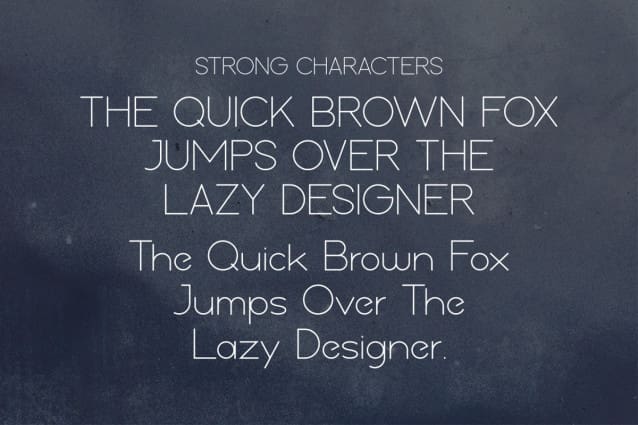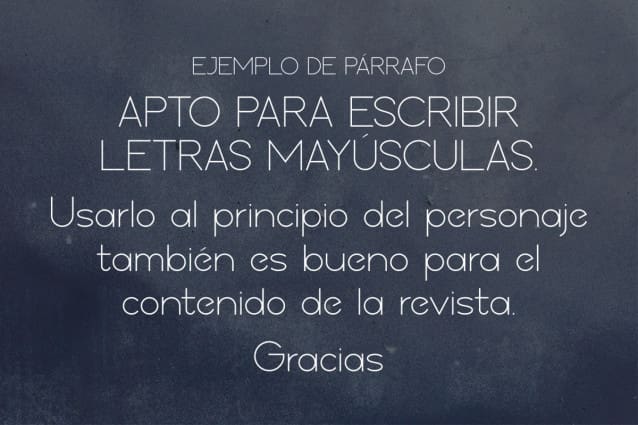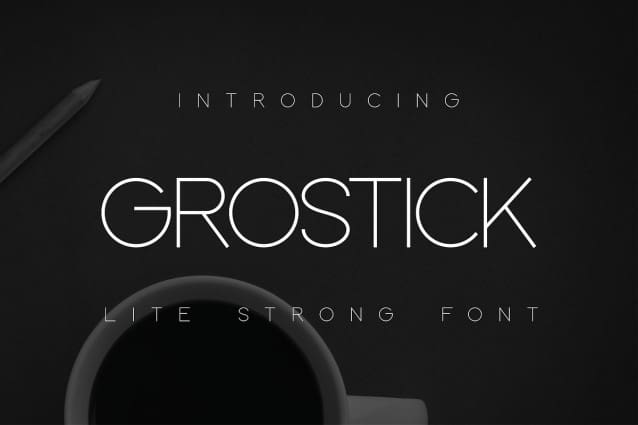
Grostick Font
Grostick Font. Fonts created specifically for use in many sentences. From its manufacture, this font underwent quite extreme forging. starting from choosing the thickness of the lines, the arrangement of the glyphs so that they have the right level of precision and geometrical precision. equipped with glyphs for several states that use additional spelling, making it possible to use on a wide scale. Magazine and Description are the main Topics in this Font.